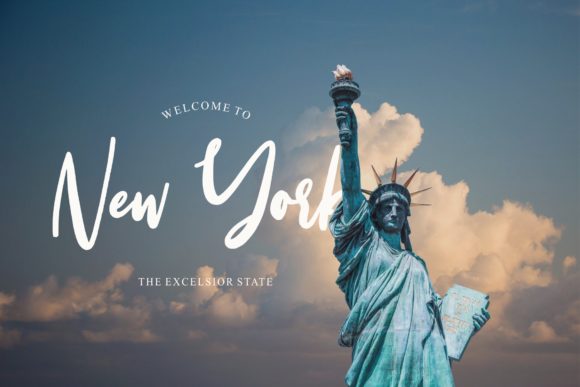
Intensity Font
About Intensity Font
Intensity is a lovely and fun handwritten font with a bold twist. Get inspired by its unique feel, and turn any design project into a true stand out!